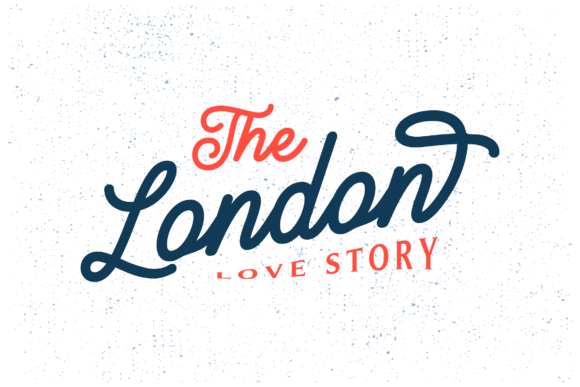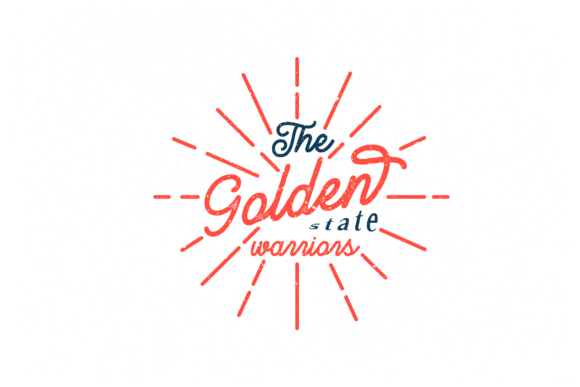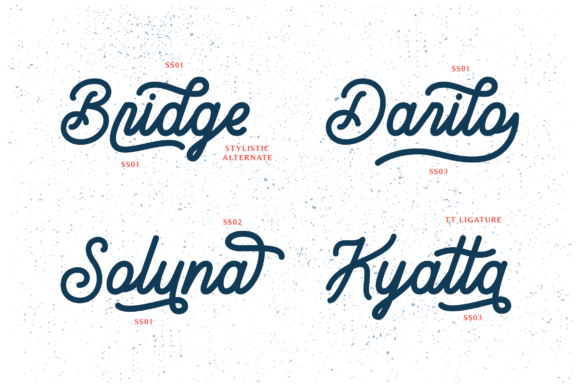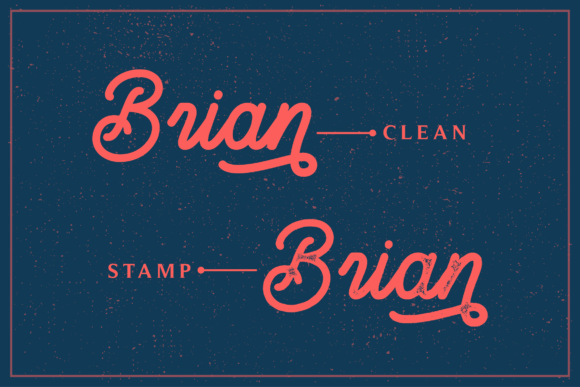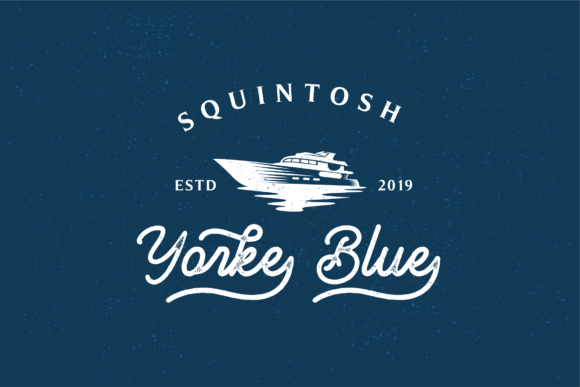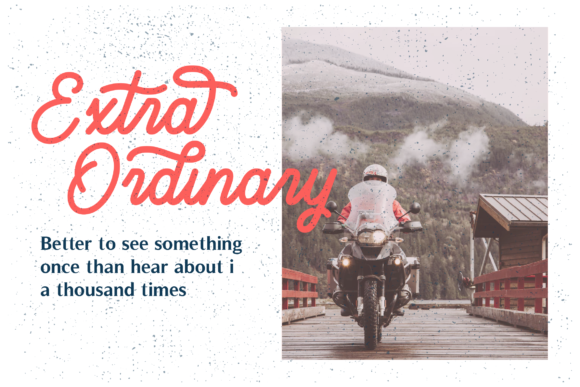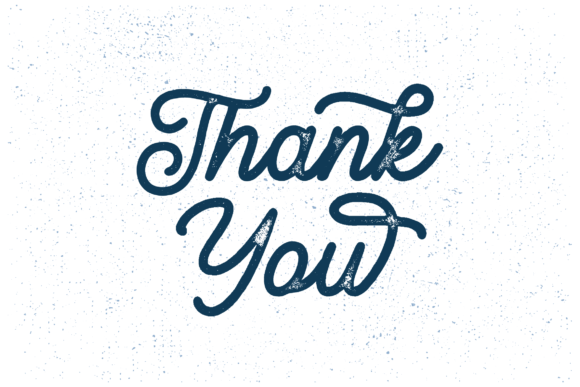
Brandon Smith Font
About Brandon Smith Font
Brandon Smith is an elegant and lovely handwritten font with heaps of personality! It will add a sophisticated spark to any design idea.